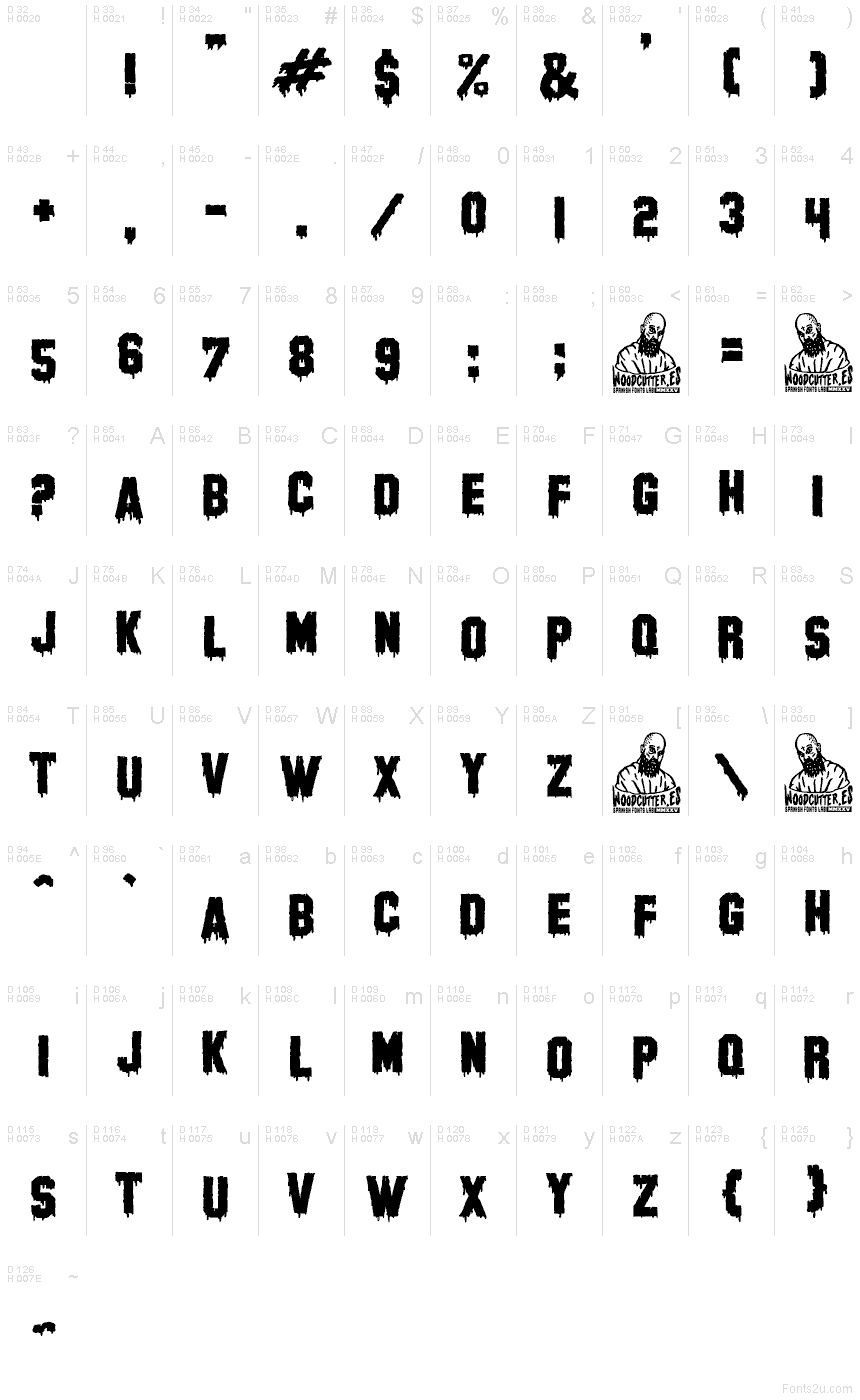
Hollywood Nightmare
Hollywood Nightmare font by Woodcutter is a free scary display typeface that looks like its letters were ripped from a blood-splattered movie poster. Chunky caps ooze with jagged drips and rough edges, giving every word a grimy, splashed-on-the-wall energy. The tight spacing and heavy shapes make it shout from the page, so even a single word feels like a horror title card.
Using Hollywood Nightmare, you can instantly turn Halloween flyers, horror movie posters, haunted house signage, game titles, book covers, or spooky merch into something dark and cinematic. This free font works best in big, bold sizes where the dripping texture can breathe. For supporting text, pair it with a clean, neutral sans serif to keep everything readable while the headline does the screaming.